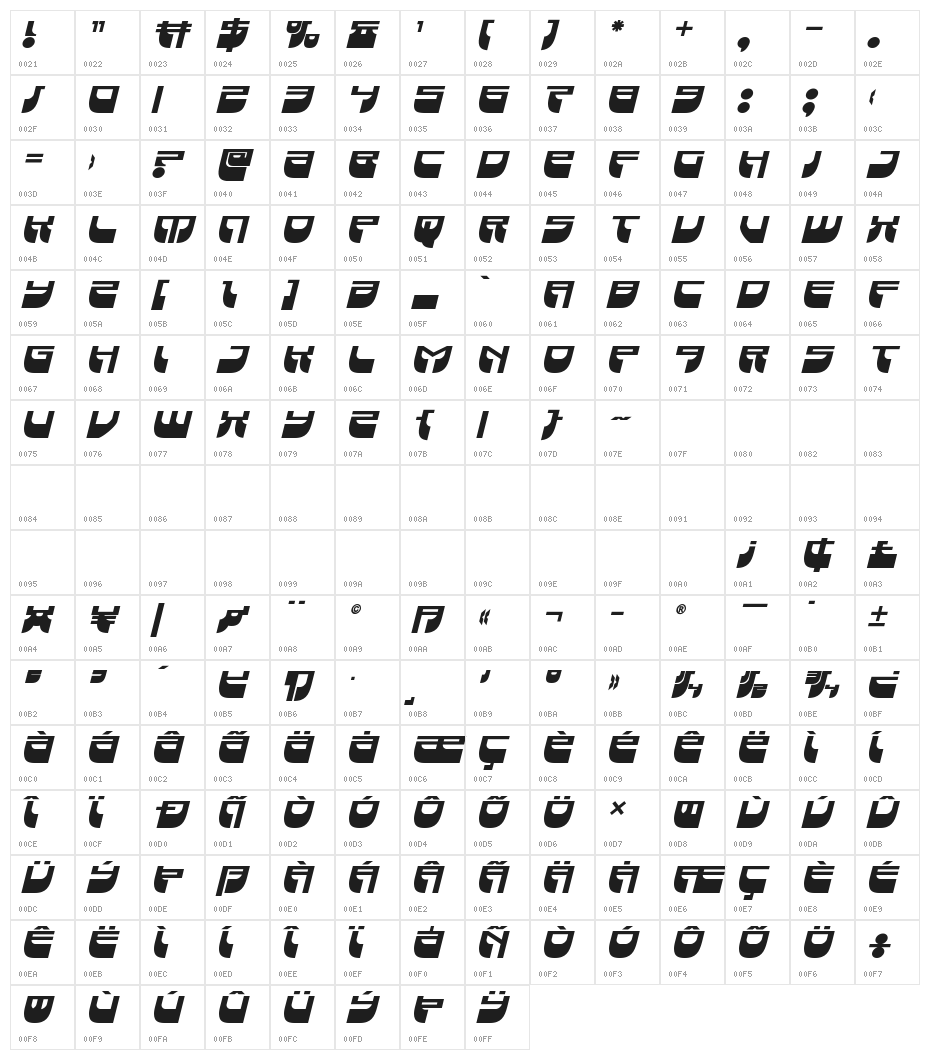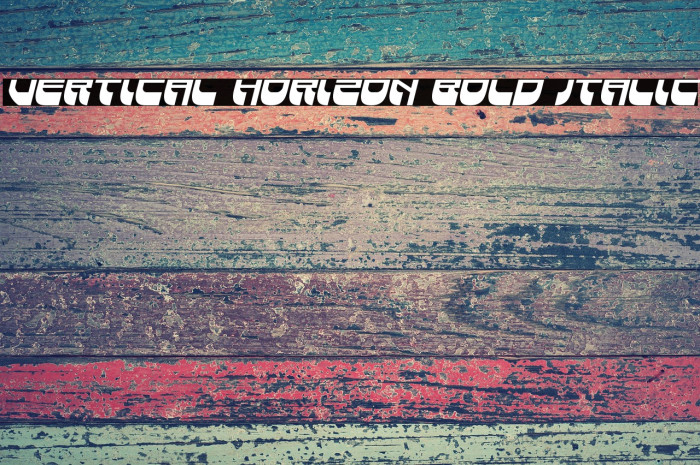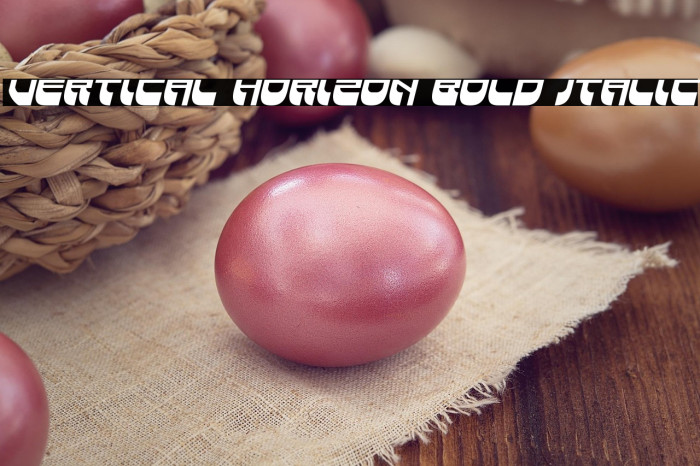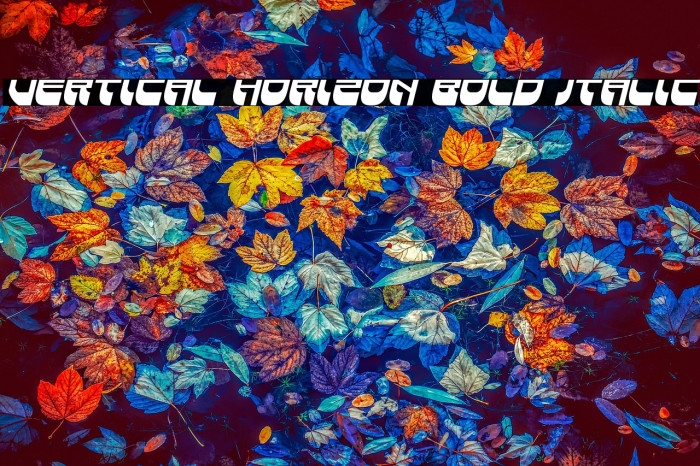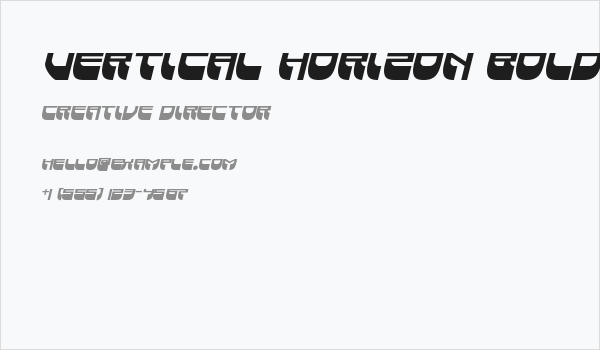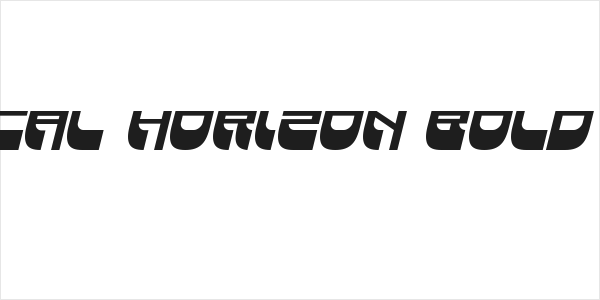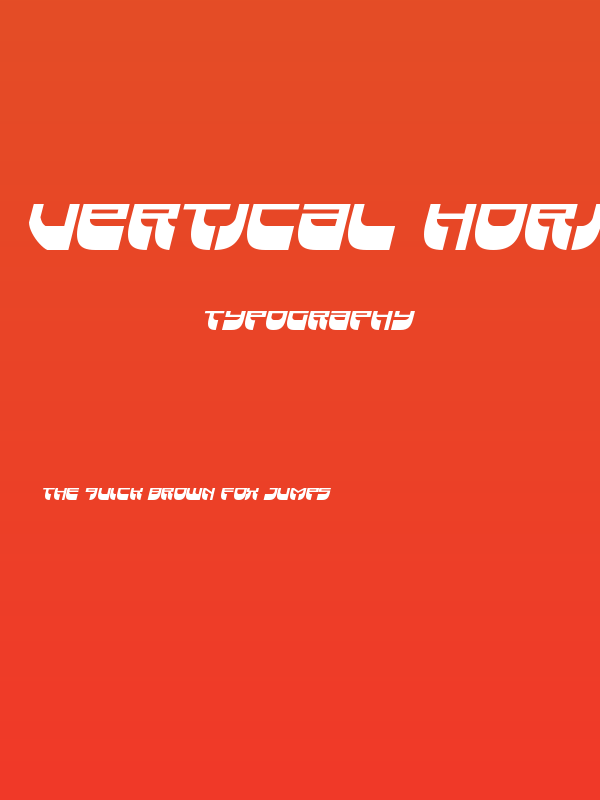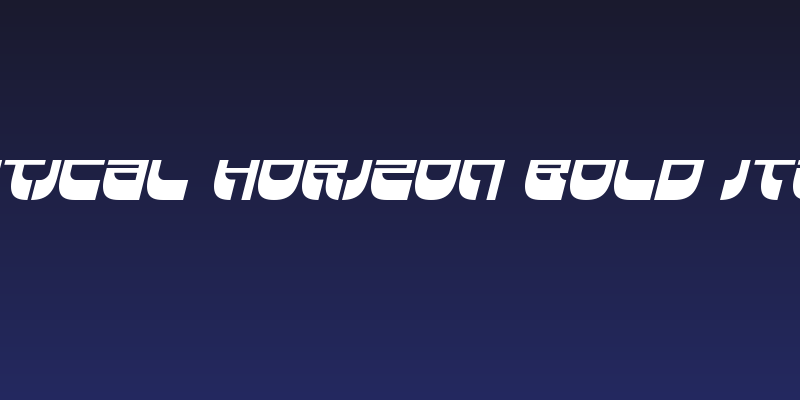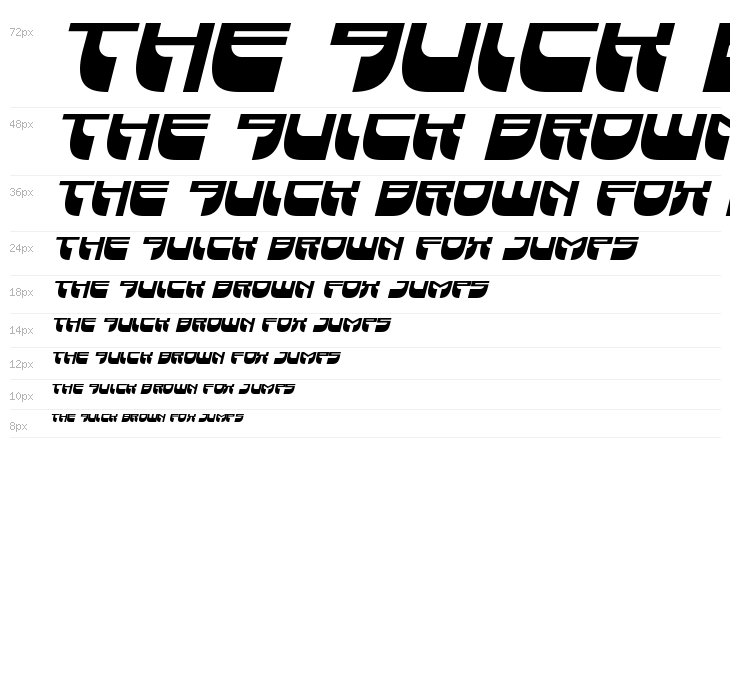
Vertical Horizon Bold Italic Font
Vertical Horizon Bold Italic Description
This font exhibits a bold and italicized style with a futuristic and dynamic appearance. The characters are designed with sharp angles and a forward-leaning posture, giving a sense of movement and speed. The uppercase and lowercase letters maintain a consistent style, with the lowercase being slightly more compact. The numbers and special characters follow the same bold and angular design, ensuring uniformity across all glyphs. The font's unique style makes it stand out, suitable for projects that require a modern and edgy look.
| Proposed Projects | Ideal for sci-fi themed projects, video game titles, technology branding, and modern advertising campaigns. |